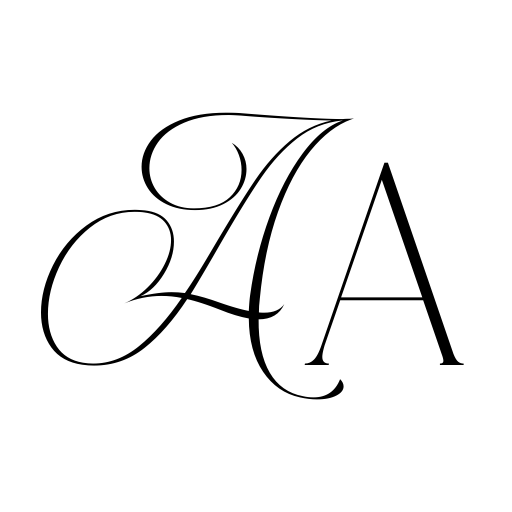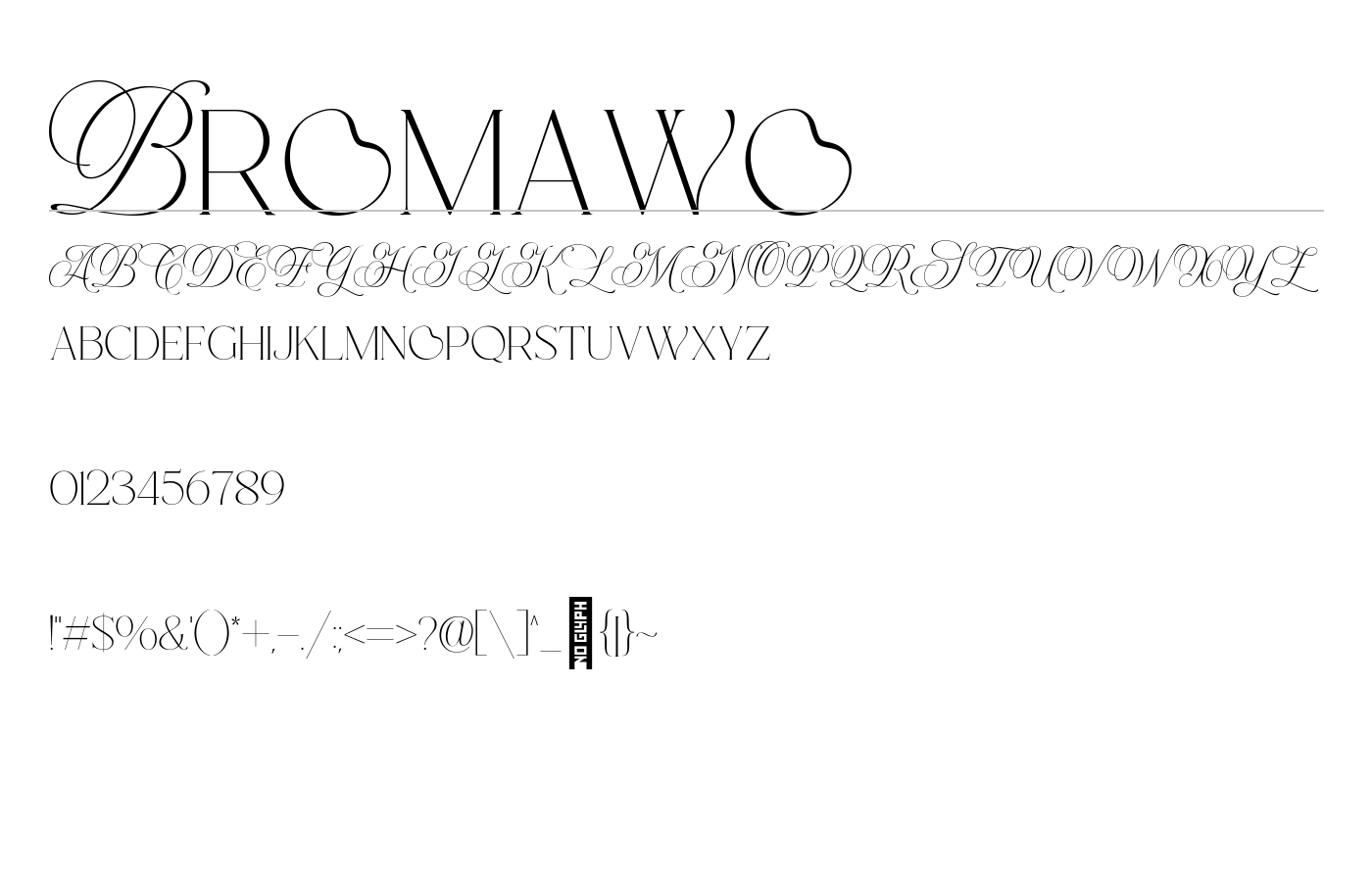
Bromawo is an elegant serif font with a striking contrast between its thin, delicate strokes and occasional bold, artistic shapes, giving it a modern yet luxurious flair. Its dramatic swashes and ornamental details make it ideal for sophisticated branding, fashion, and high-end editorial projects where a unique, refined presence is desired. This font shines best in large sizes for headlines and logos, adding a graceful and distinctive touch to any design.